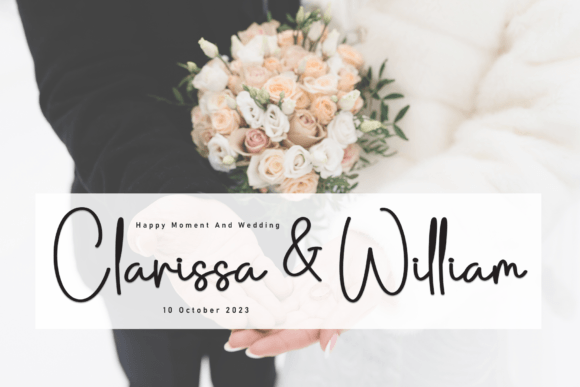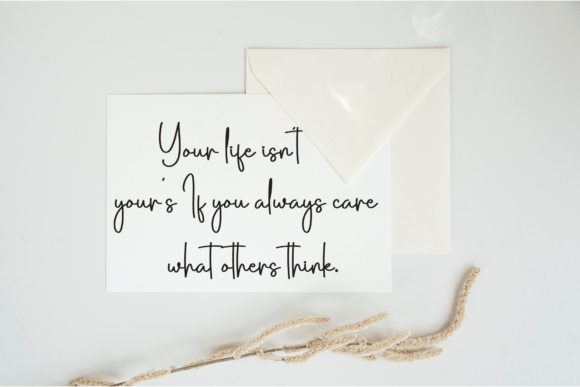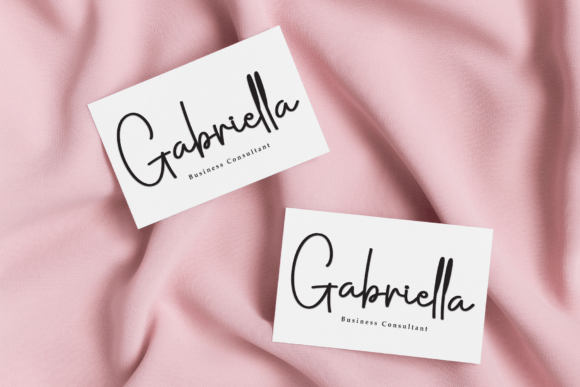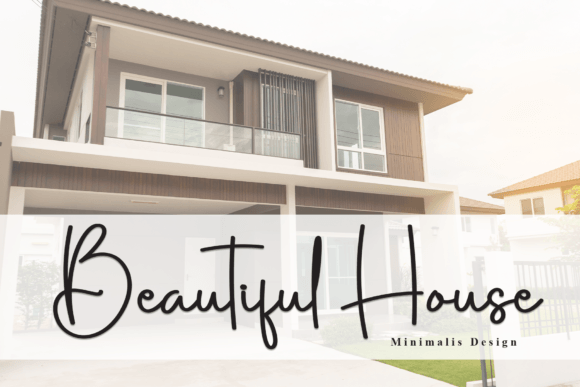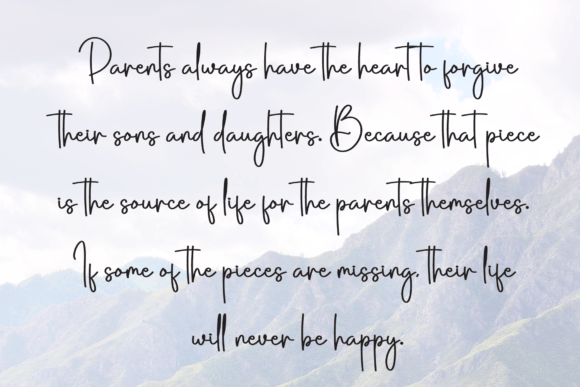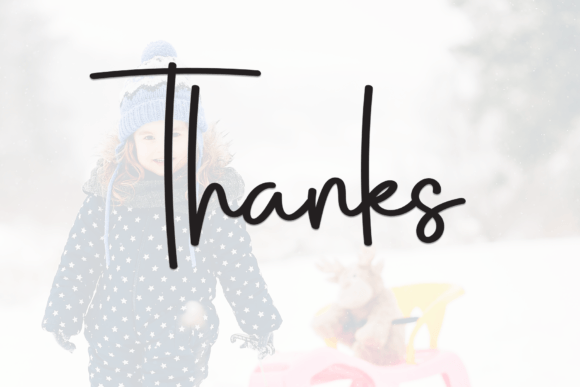
Discover the Magic of Baby Snow Font
There’s something special about holding a pen to paper and watching your creative vision take shape. It’s a moment of pure joy, when the blank page transforms into a beautiful work of art. For designers, this feeling is what drives us to create something truly remarkable. And that’s exactly what Baby Snow Font is designed to do – bring your ideas to life in a way that’s both elegant and eye-catching.
Baby Snow Font is a lovely, handwritten font that’s perfect for creating logos, branding, and quotes that stand out from the crowd. With its unique and beautiful touch, every letter comes alive, making your design truly unforgettable. As a designer, you’ll love using Baby Snow Font for its versatility and timelessness – it’s a valuable addition to any design toolbox.
Baby Snow Font Key Features
- Unique Characteristics: Baby Snow Font is a whimsical, cursive font featuring rounded edges, soft curves, and a playful feel, perfect for children’s books, nursery decorations, and other creative projects.
Baby Snow Font Review
Overall, I think the Baby Snow Font is a cute and playful font. It’s perfect for projects that require a whimsical touch. ✨ I love the way the font’s rounded edges and gentle curves evoke a sense of innocence and sweetness.
Here are some specific things that I think work well about this font:
- Its versatility – Baby Snow Font can be used for a wide range of projects, from children’s books to wedding invitations.
- Its customizability – the font comes with a variety of styles and weights, allowing you to tailor it to your specific design needs.
- Its readability – despite its playful appearance, Baby Snow Font is surprisingly easy to read, even in smaller sizes.
However, I do think there are a few limitations to this font:
- Its limited character set – Baby Snow Font may not include all the characters you need for certain languages or special symbols.
- Its potential for overuse – because of its cuteness, Baby Snow Font can easily become overused or clichéd in certain designs.
Overall, I think the Baby Snow Font is a great choice for designers who want to add a touch of whimsy to their projects. With its versatility, customizability, and readability, it’s a solid choice for a wide range of applications. Just be mindful of its limitations, and use it in moderation to avoid overuse.
The Baby Snow Font is ideal for creating whimsical and playful designs, such as:
- Children’s party invitations
- Baby shower invitations
- Wedding invitations with a vintage or rustic theme
- Christmas and winter-themed designs
Remember to experiment with different font sizes, colors, and styles to get the most out of the Baby Snow Font.
Alternatives to Baby Snow Font
Bebas Neue is a modern sans-serif font that resembles a handwritten feel. It’s ideal for use in headings and titles, and works well for branding and advertising materials. Bebas Neue has a more geometric feel compared to Baby Snow Font, which has a more whimsical and childlike feel. Use Bebas Neue when you want a clean and modern look.
Lato is a sans-serif font that’s highly legible and versatile. It’s suitable for use in body text and headings, and works well for digital products and websites. Lato has a more neutral feel compared to Baby Snow Font, which has a more playful and cursive feel. Use Lato when you want a clean and professional look.